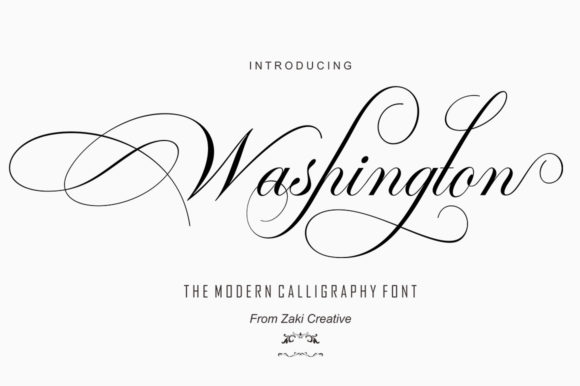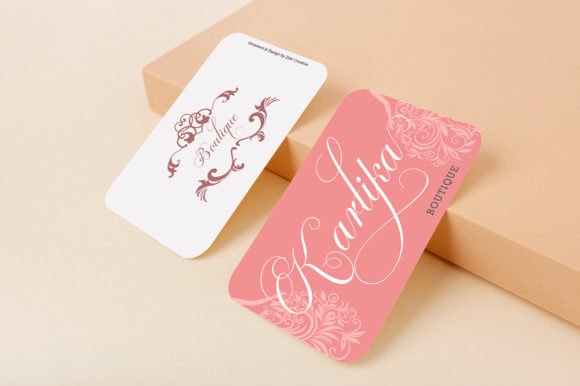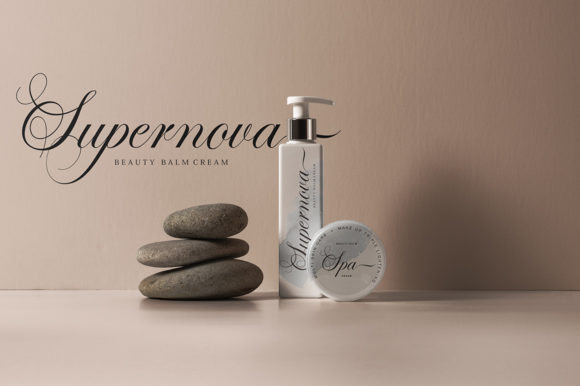
Washington Script Font
About Washington Script Font
Washington Script is a chic, refined script font that emanates sophistication and elegance. Its stylish alternates and ligatures make this font the perfect match for any project. Washington Script is PUA encoded which means you can access all of the amazing glyphs and ligatures with ease!